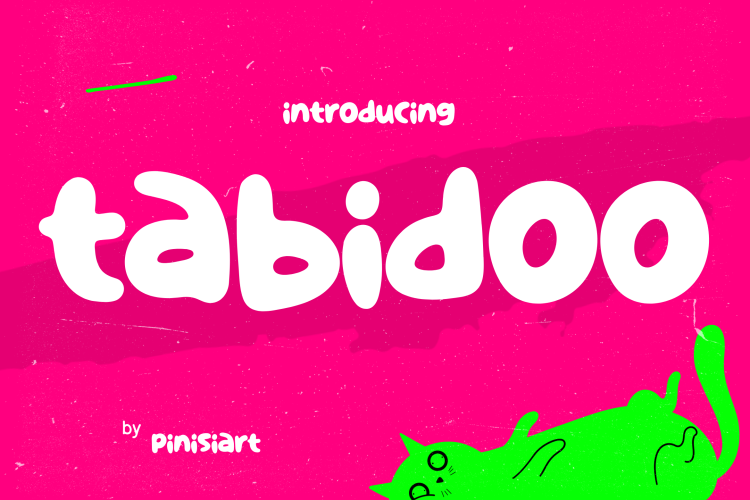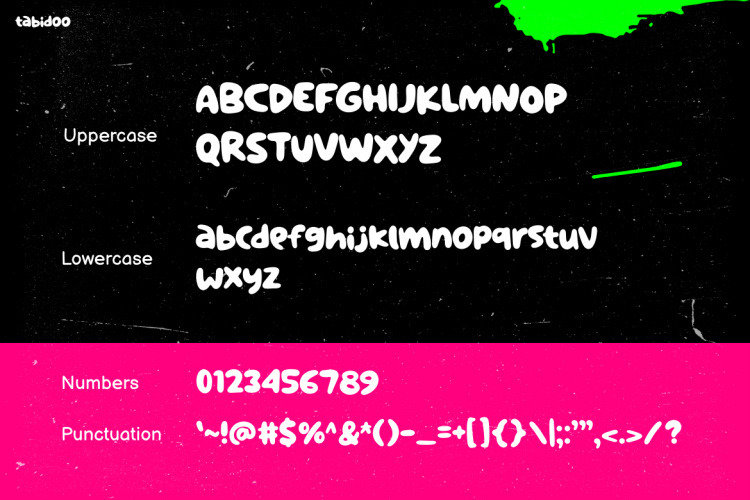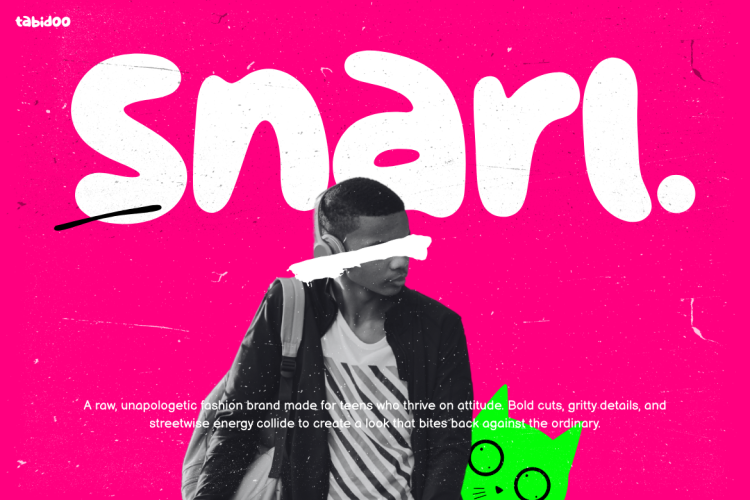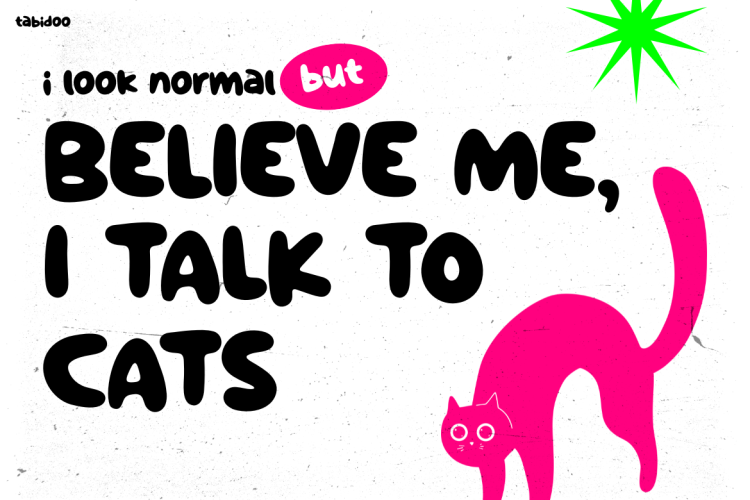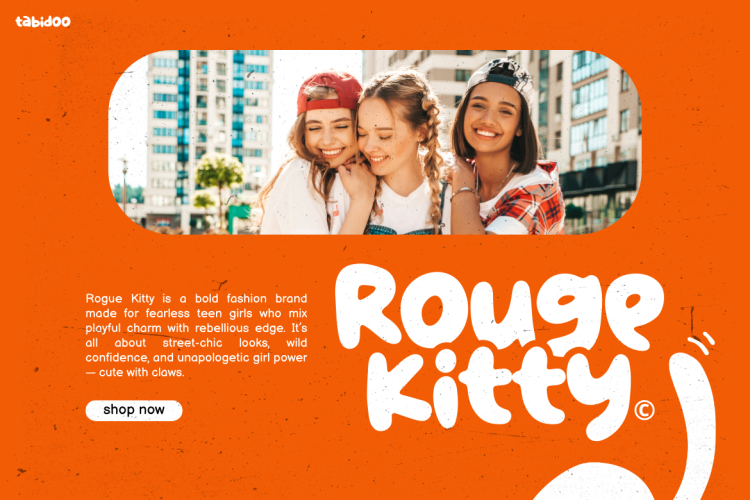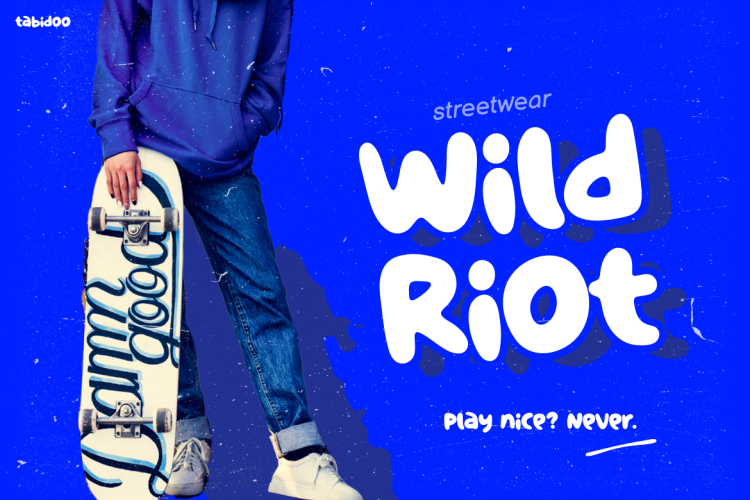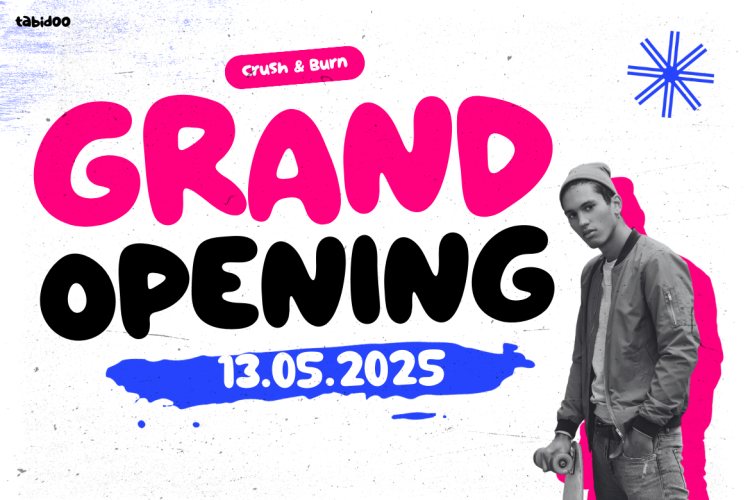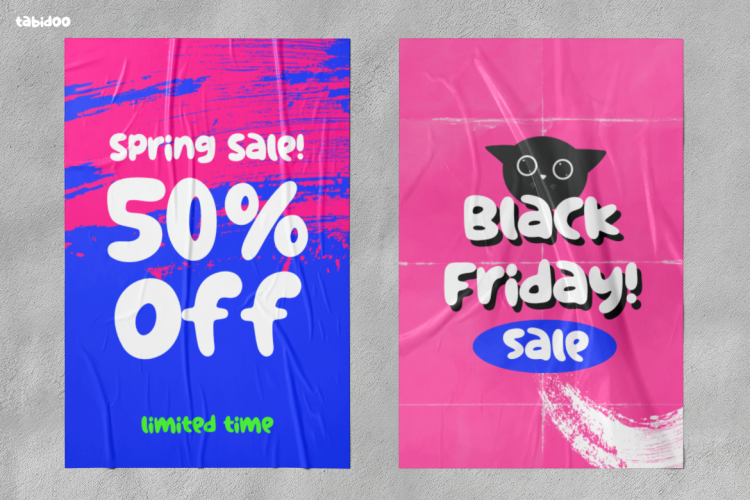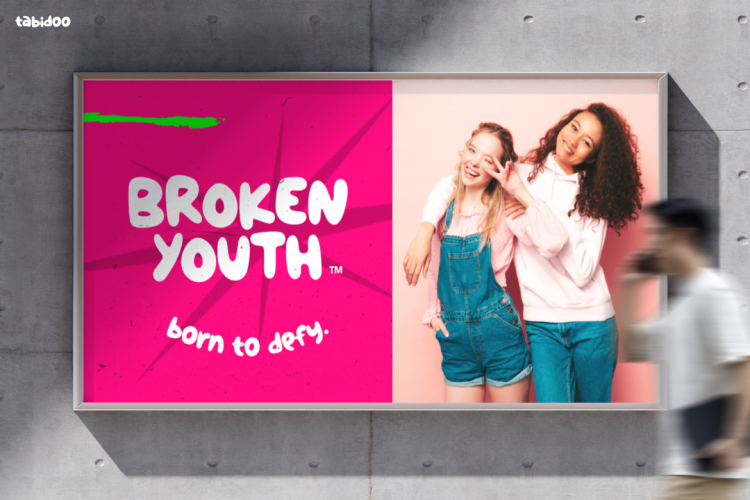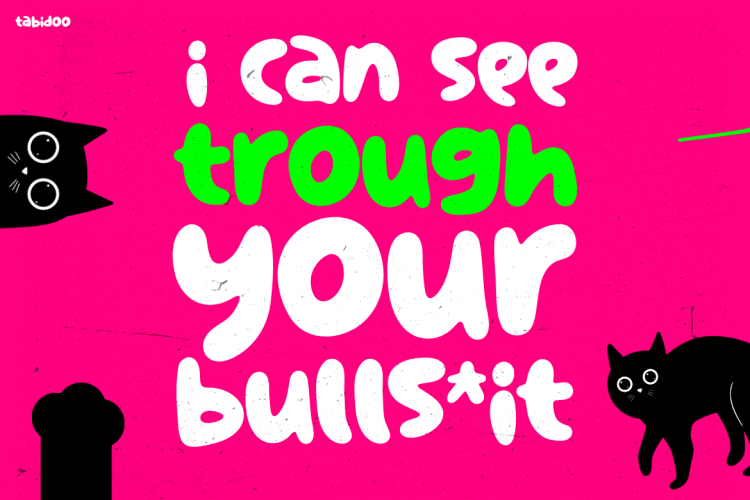
Kids Font Tabidoo โ Playful Energy in Every Letter
Kids Font Tabidoo is a unique typeface with bold, bubbly curves and a cheerful handwritten style. It is instantly eye-catching and fun. The playful strokes and rounded shapes radiate positivity, giving every design a fresh and youthful vibe. Unlike standard fonts, Tabidoo feels imaginative and adventurous. Moreover, the quirky letterforms and dynamic thickness ensure that this font stands out. Its modern yet approachable aesthetic makes it perfect for capturing both energy and friendliness.
The design of this font was inspired by doodles, childrenโs handwriting, and street-style graphics. Therefore, it carries a spontaneous look that feels authentic and warm. Each letter looks slightly imperfect in the best way, so your words appear full of life. With this combination, Tabidoo can express joy, humor, and creativity all at once.
Perfect For Designers and Creative Projects
This font is not only fun but also highly versatile. Kids Font Tabidoo is created for anyone who wants to inject personality into their work. Because of its bold style, it guarantees readability while keeping a playful look.
Teachers & Educators: Great for worksheets, posters, and kid-friendly materials that make learning more exciting.
Content Creators & Influencers: Perfect for Instagram posts, YouTube thumbnails, or TikTok graphics that need instant energy.
Business Owners & Marketers: Ideal for promo banners, ads, and packaging, especially for toys, fashion, or youth-focused products.
Designers & Illustrators: Add warmth to book covers, digital art, or layouts, giving projects more character and charm.
In addition, Tabidoo adapts easily across digital and print media. It works well for event posters, greeting cards, childrenโs storybooks, or playful branding projects. No matter the platform, it always brings joy and personality.
If you want a font that feels alive, approachable, and full of character, Kids Font Tabidoo is the answer. It is playful yet functional, ensuring clarity without losing its charm. Moreover, it transforms simple words into lively statements. Designers love it because it is flexible, while kids love it because it looks fun. Add it to your collection today and let your designs shine with joy, creativity, and personality. With Tabidoo, every message becomes more engaging and unforgettable.